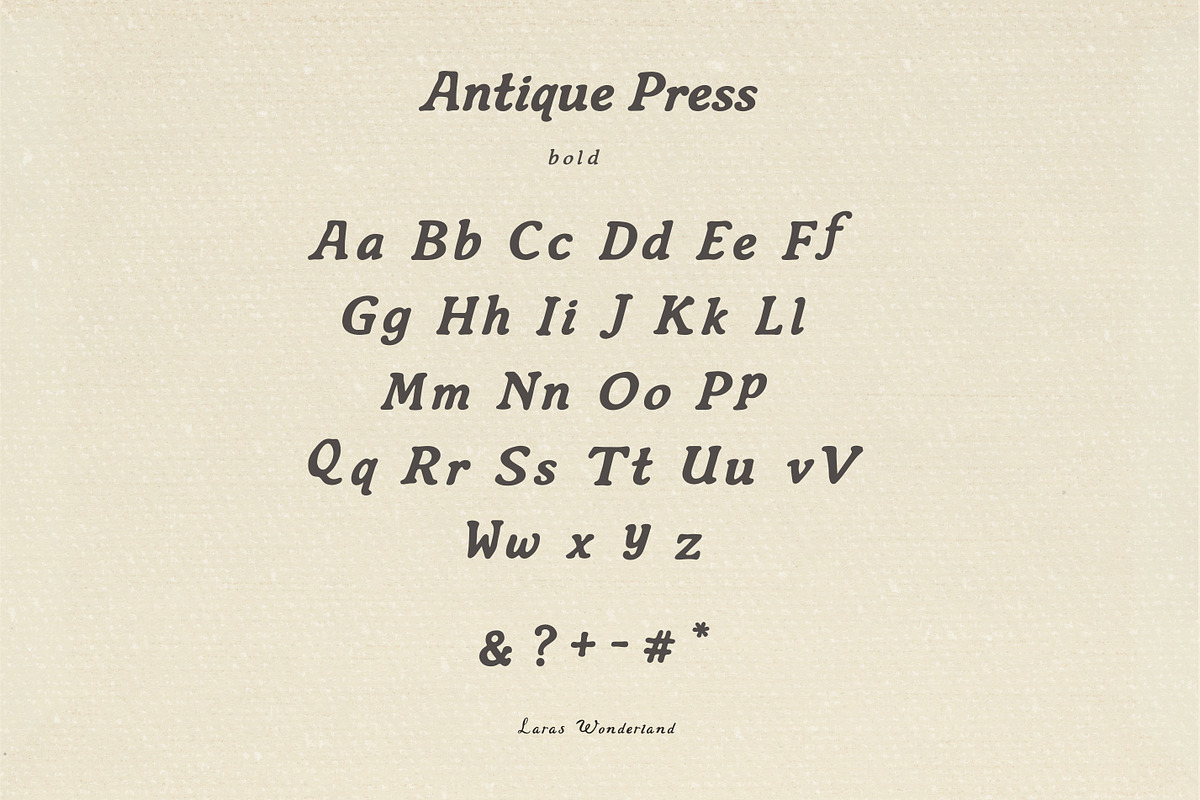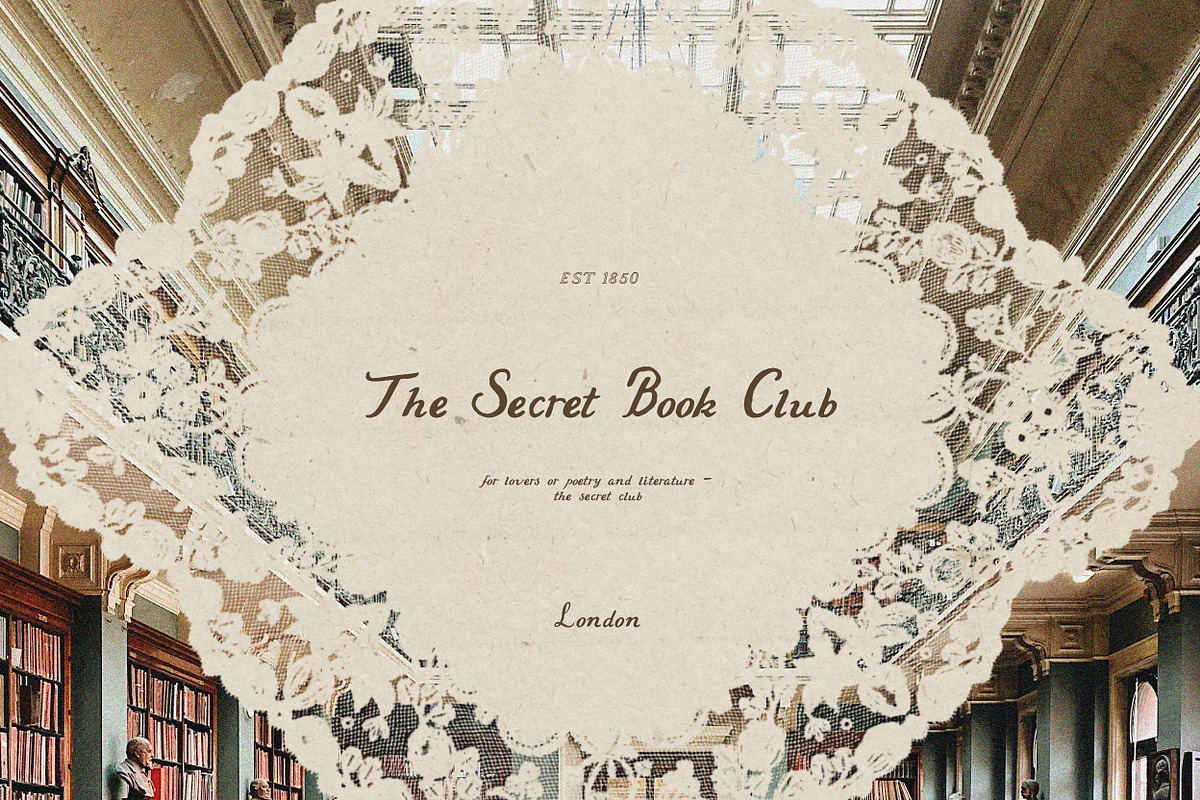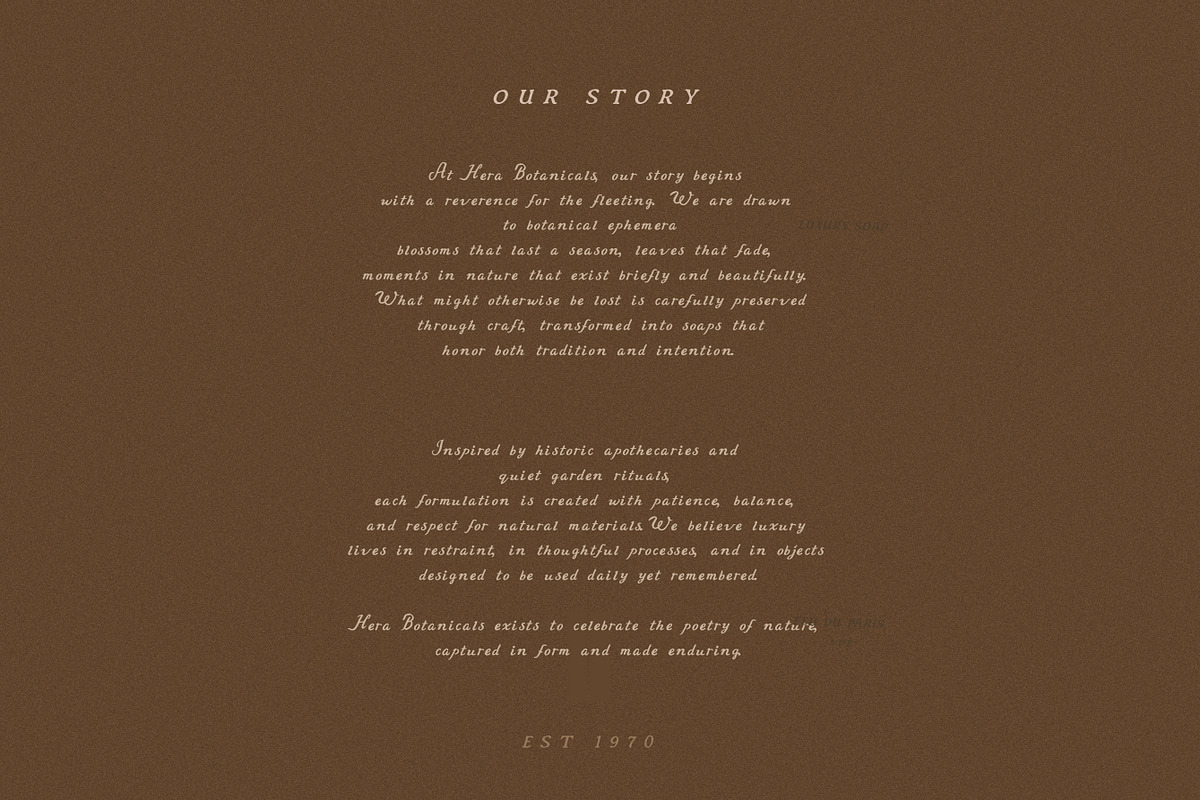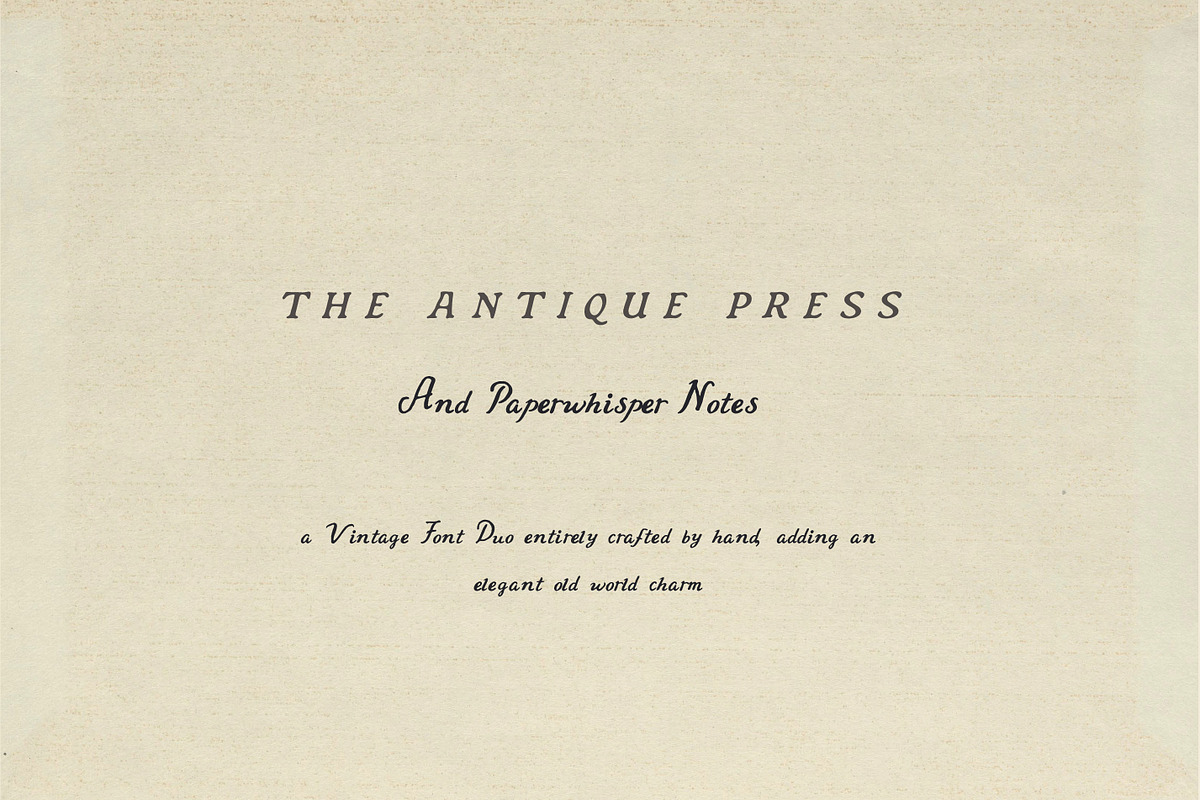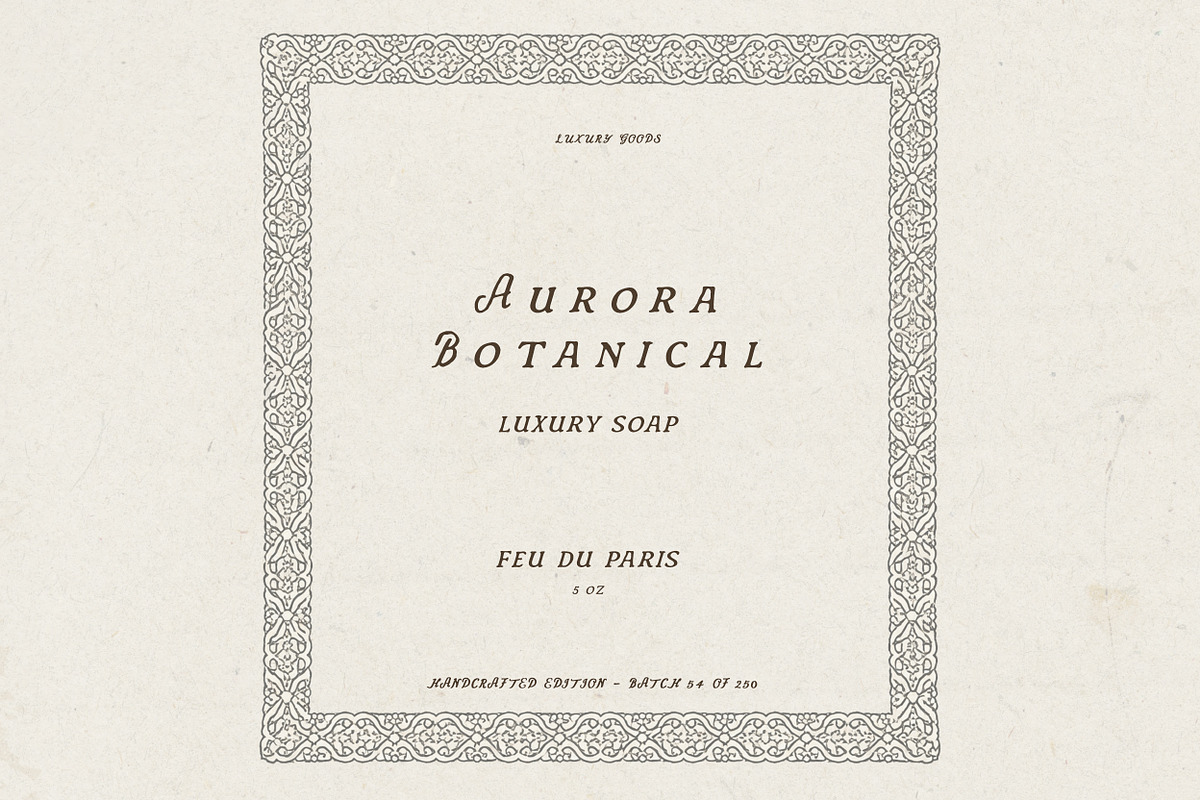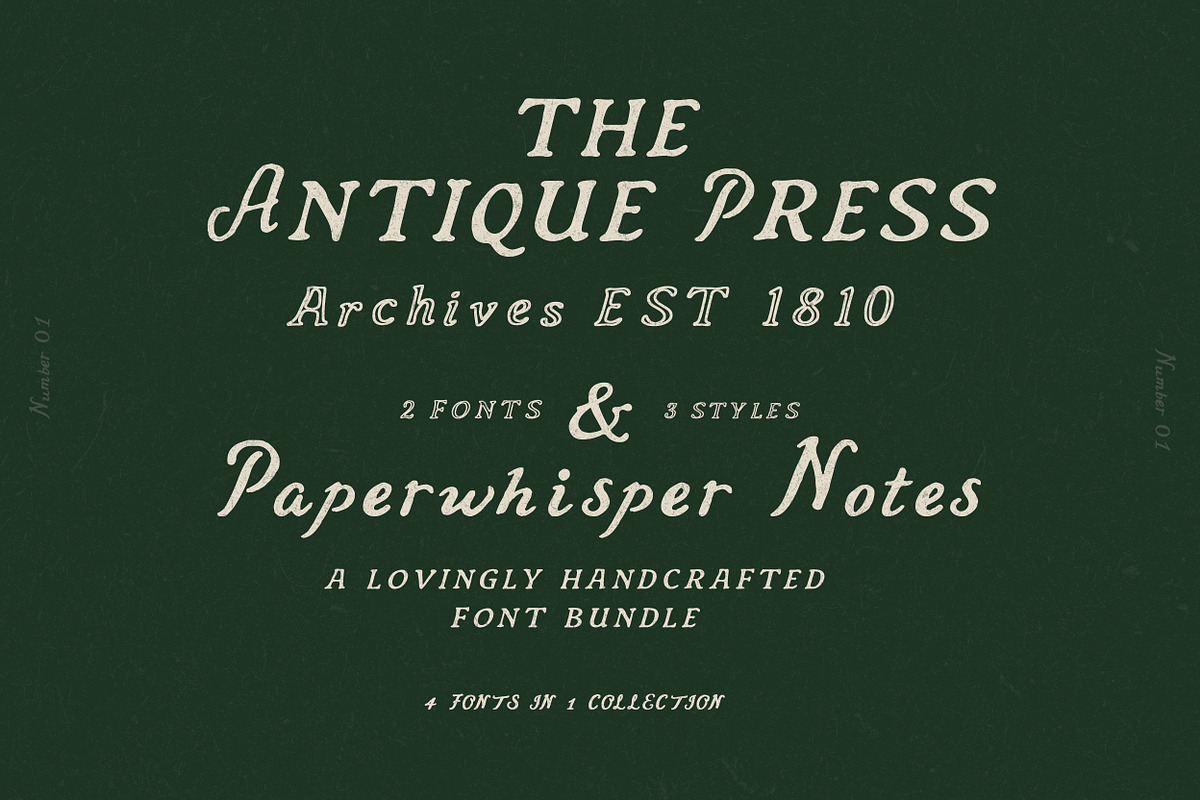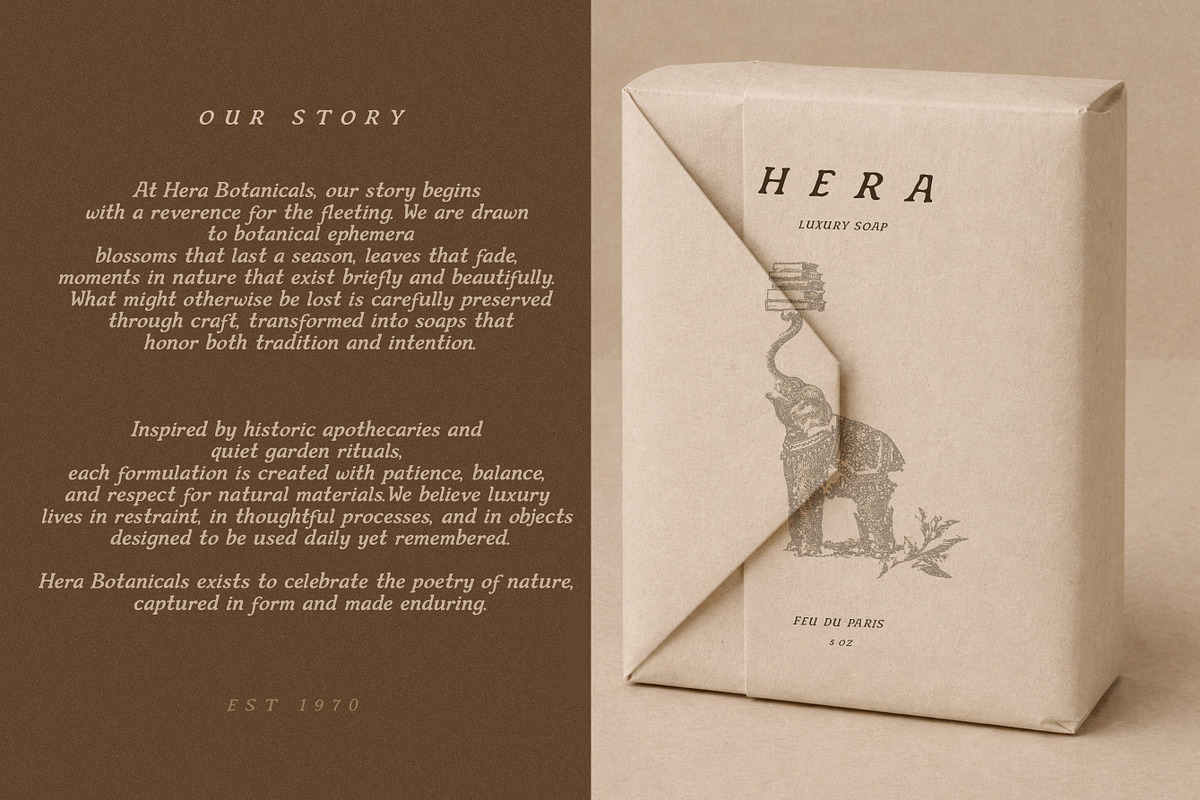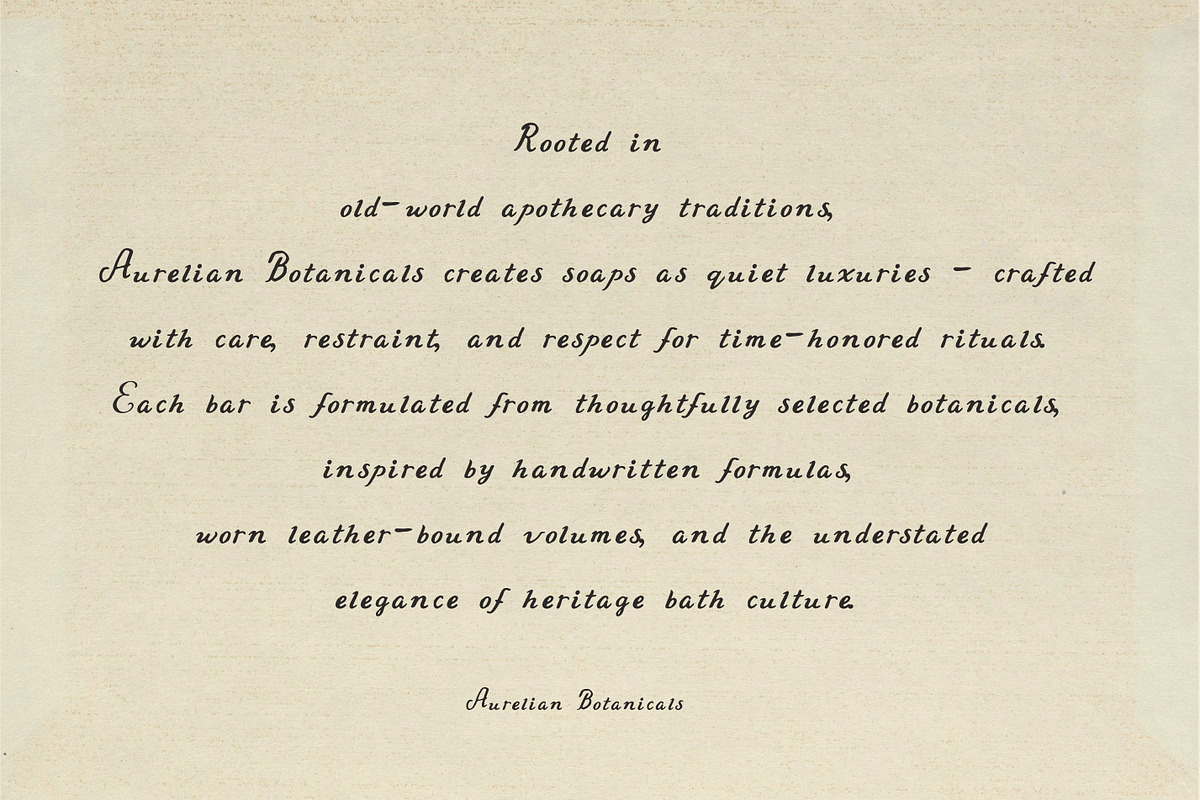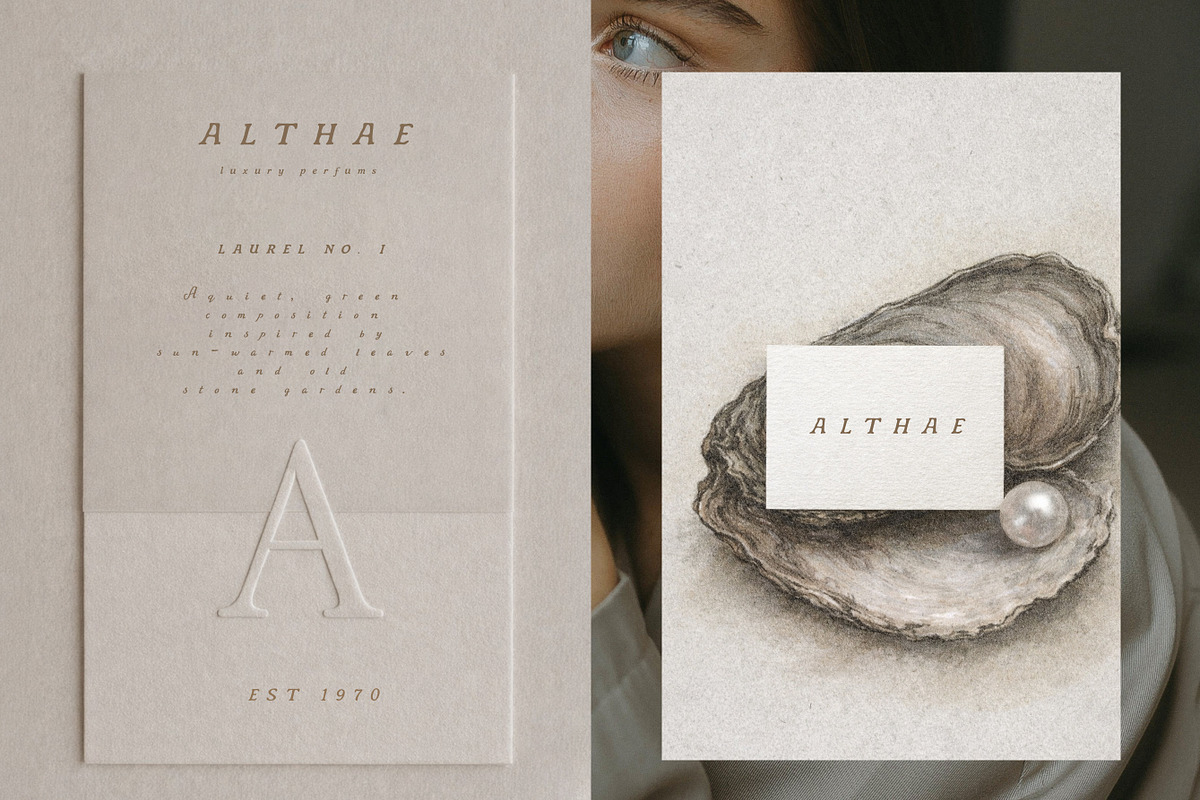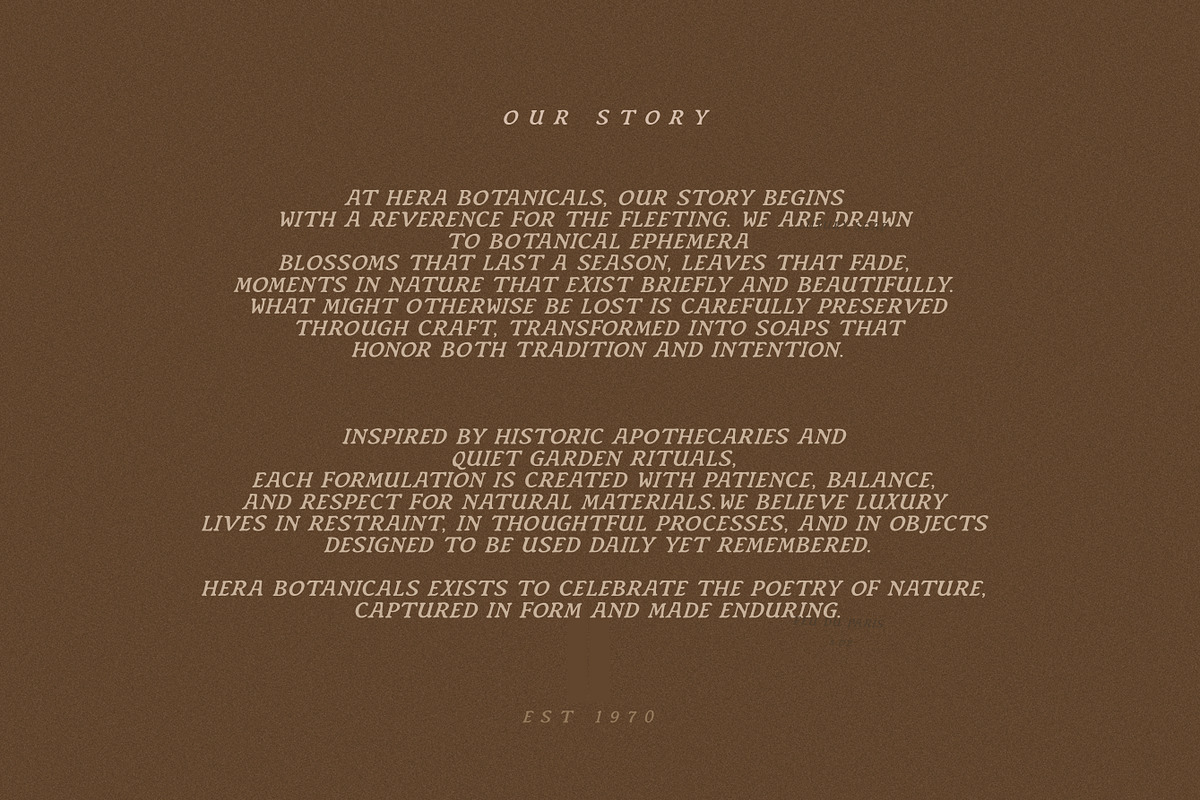
Antique Font Family Rustic Serif Duo
The Antique Press & Paperwhisper is a vintage serif font duo inspired by old printing houses, heritage libraries, and handwritten notes found in antique books. The Antique Press features a classic letterpress style serif in three variations (regular, bold, and outline), ideal for logos, book covers, posters, and heritage branding. Paperwhisper complements it with a soft handwritten note style, perfect for annotations, quotes, and organic accents.
A timeless typography set for vintage design, editorial layouts, and refined brand identities.